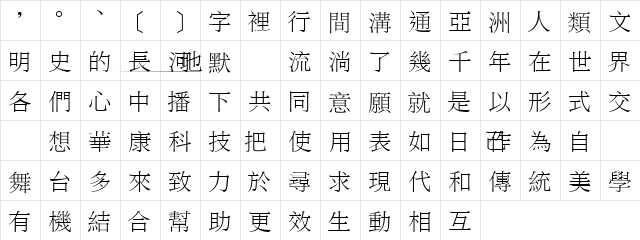
DFLiSongLight1B Regular
Design Context for DFLiSongLight1B Typeface
DFLiSongLight1B is a composed and adaptable typeface that performs quietly and consistently across a wide range of design contexts. The delicate stroke weight brings airiness and refinement to layouts.
Pro Tip: Use DFLiSongLight1B in both headline and body roles to test its range before committing to a single application.